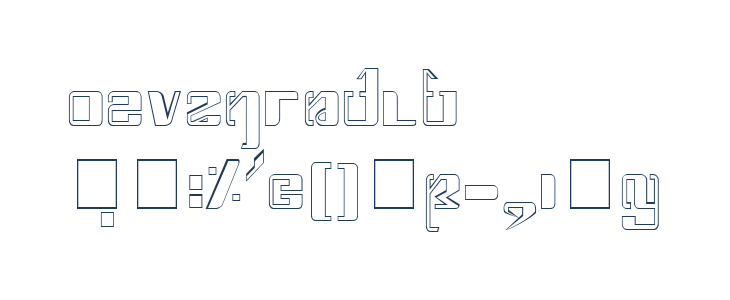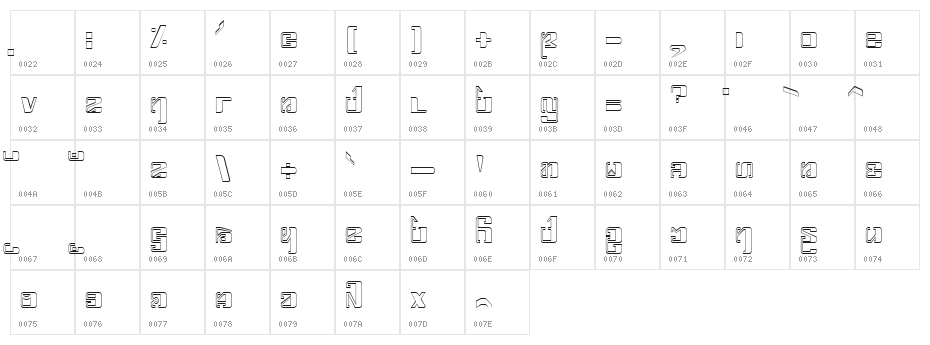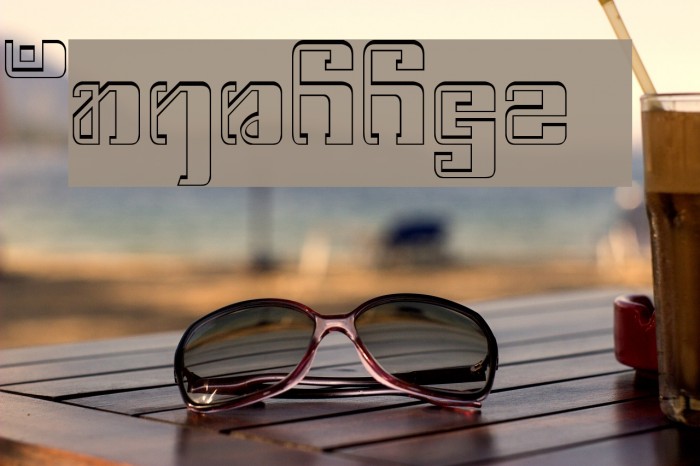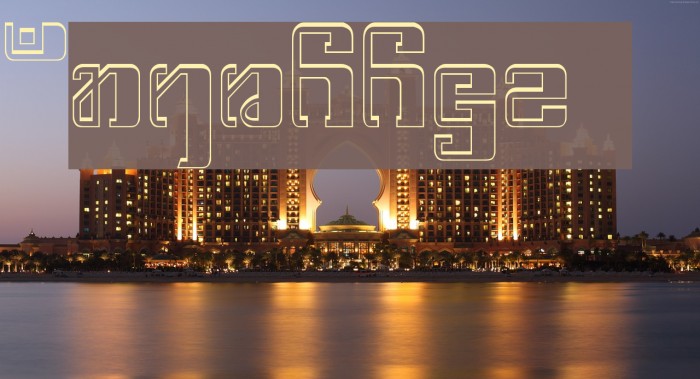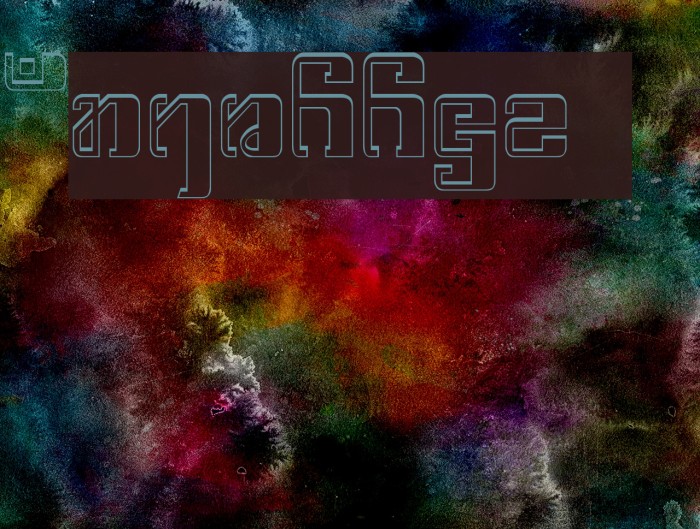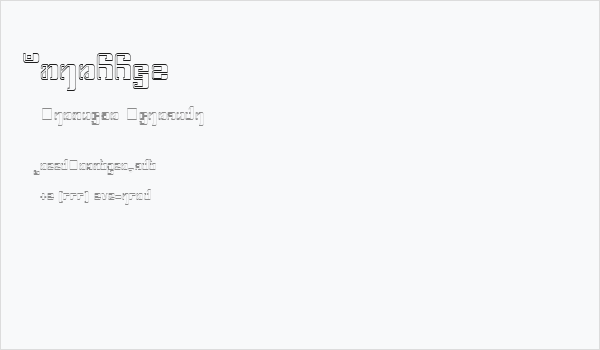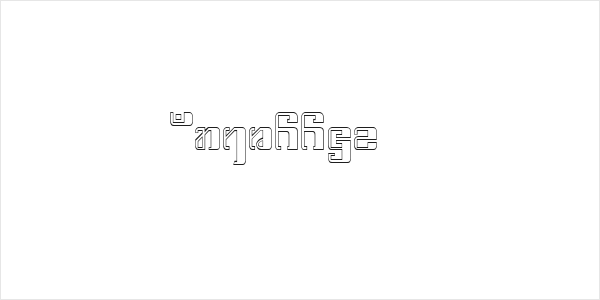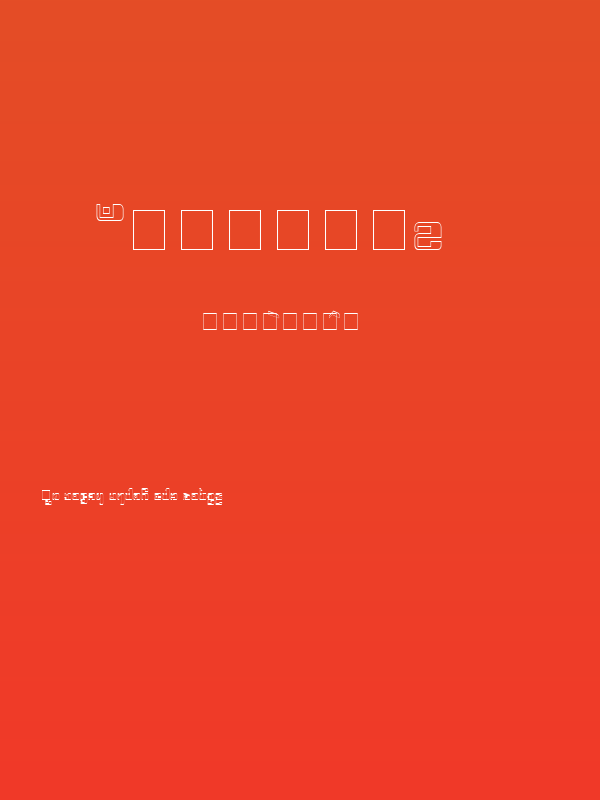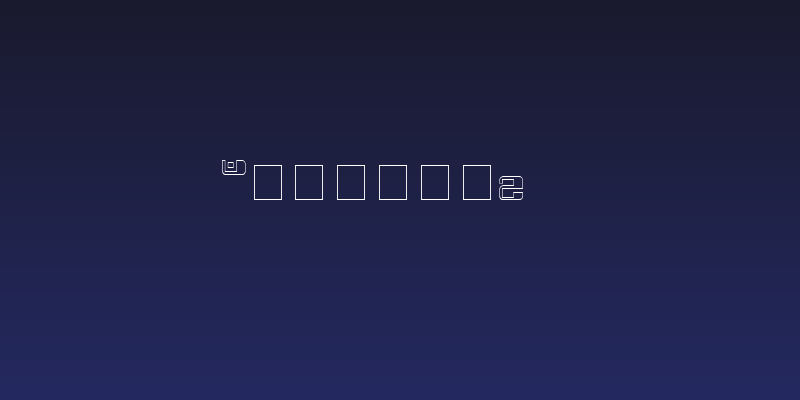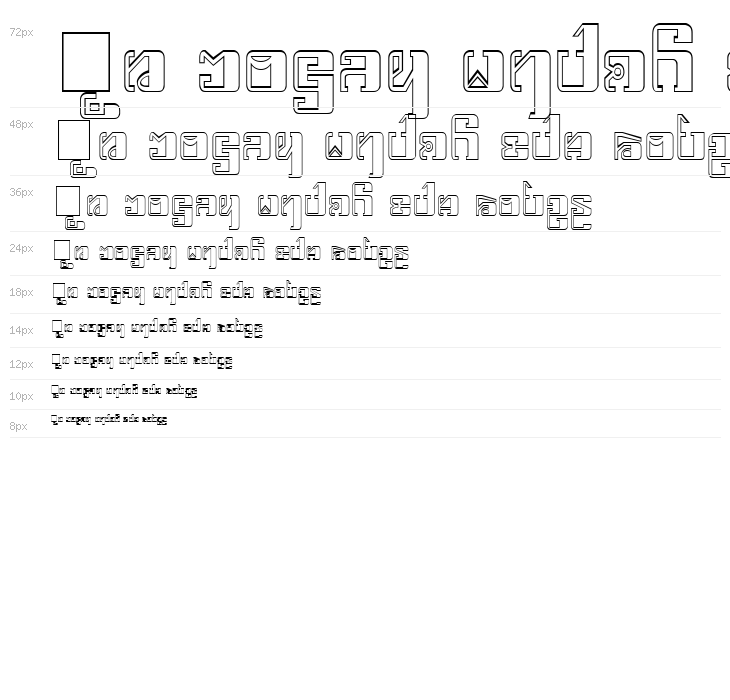
Karenni1 Font
Karenni1 Description
This font features a unique and intricate design with a geometric and angular style. The characters are outlined, giving them a hollow appearance, which adds to the decorative nature of the font. The lines are consistent in thickness, providing a uniform look across all characters. The font includes a full set of uppercase and lowercase letters, numbers, and a selection of special characters. Its distinct style makes it stand out, suitable for creative and artistic projects.
| Use Case | Logos, Posters, Artistic projects |
| Proposed Projects | Ideal for posters, album covers, branding, and any project requiring a bold, artistic touch. |